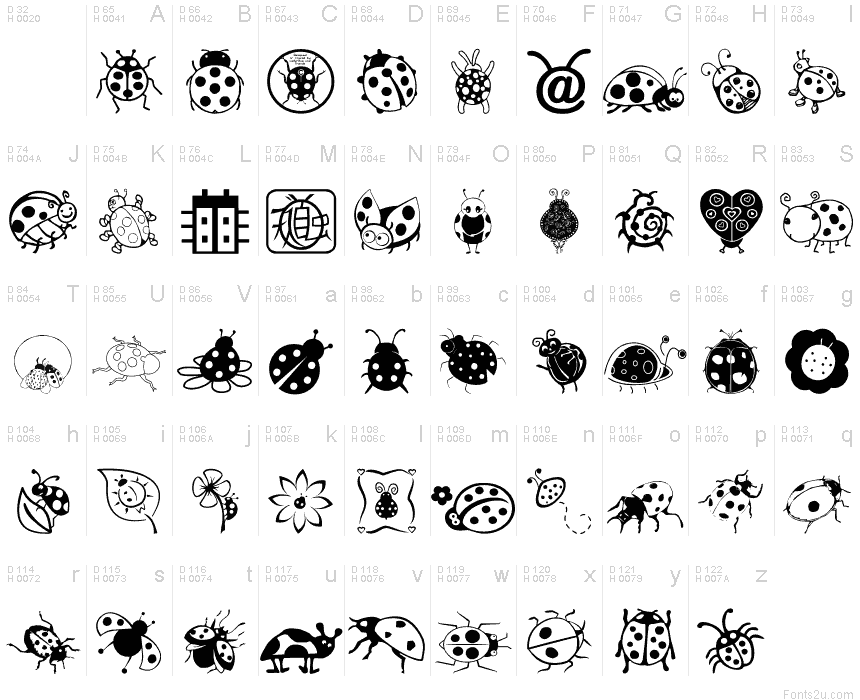
Ladybug Dings by Lady-Bug and friends is a free cartoon insect dingbat font built around spotted beetles and ladybugs. The collection shifts from rigid geometric bodies to rounder hand-drawn creatures, with bold outlines, large dots, rounded compact silhouettes, antennae, legs, and wing markings creating an unmistakably playful set.
A children's nature brand or bug-themed product line could use these figures across packaging and merchandise. Their cheerful expressions also suit classroom materials and party invitations focused on gardens, insects, or outdoor discovery. Individual bugs can become badges, mascots, or illustrated emblems.
Ladybug Dings
Lady-Bug and friends